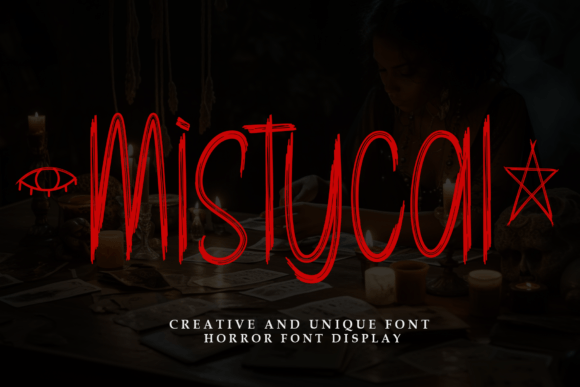
Adorn your digital creations with an enchanting touch of mystique, and step into a captivating realm of the macabre with Mistycal Font - the gateway to spine-tingling designs. Bathed in ethereal elegance, this script font is an ode to the enigmatic allure of the supernatural. Let your imagination run wild as you craft haunting invitations, spine-chilling posters, or unsettling social media posts that are guaranteed to send shivers down your audience's spines.
Unleash the power of Mistycal Font, a masterful work of haunting beauty. With every stroke of the pen, this font weaves a tale of the unknown, evoking the haunting charm of an ancient grimoire. Its carefully crafted characters possess an almost spectral quality, imbued with an eerie charm that will leave your readers spellbound. Prepare to weave tales of darkness and enchant your readers with this font's unparalleled elegance.
Dive into the boundless depths of your creativity with Mistycal Font, a font that exudes an aura of enchantment. Witness the transformation of your words into mesmerizing works of art, imbued with the haunting elegance of the supernatural. Conjure up chilling stories, create unsettling logos, or design spellbinding book covers that will capture the imagination and leave your audience craving more.
Embrace the boundless versatility of Mistycal Font, a font that defies creative boundaries. Whether you're conjuring up spine-chilling invitations for a Halloween party or crafting haunting posters for a horror movie premiere, this font will infuse your designs with an otherworldly charm. Its spectral essence will elevate your projects, adding a touch of the supernatural that will leave your audience captivated.